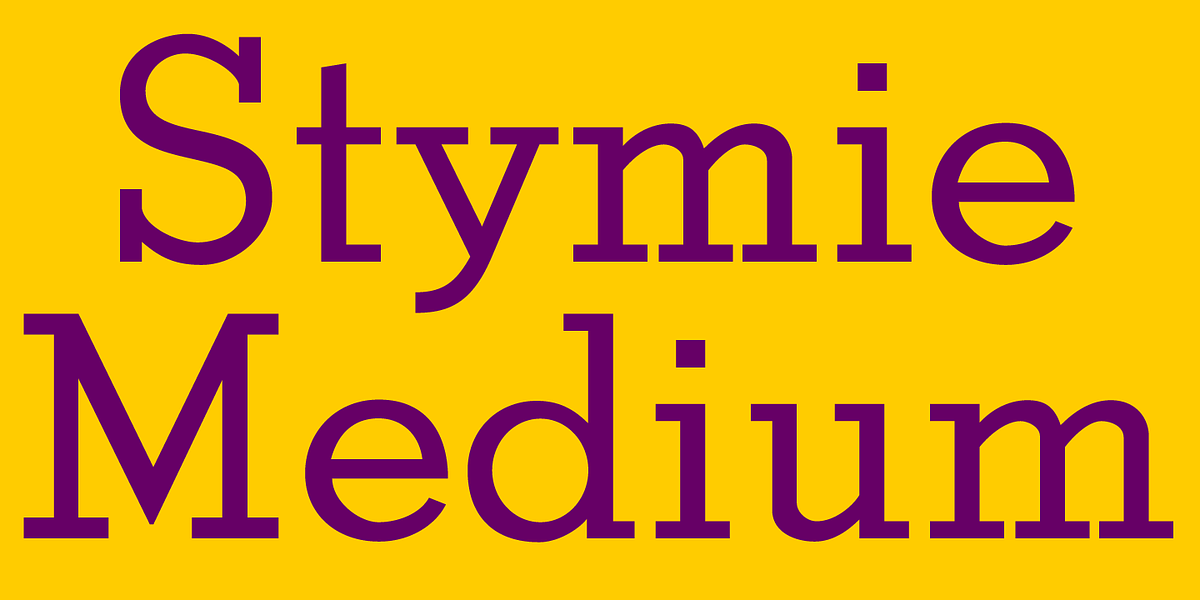
Stymie Medium
This font is a classic example of the geometric slab serif style popular in the early 20th century. Designed by Morris F Benton in 1931, its robust design and strong serifs give it a timeless quality suitable for headlines, branding, and editorial design.